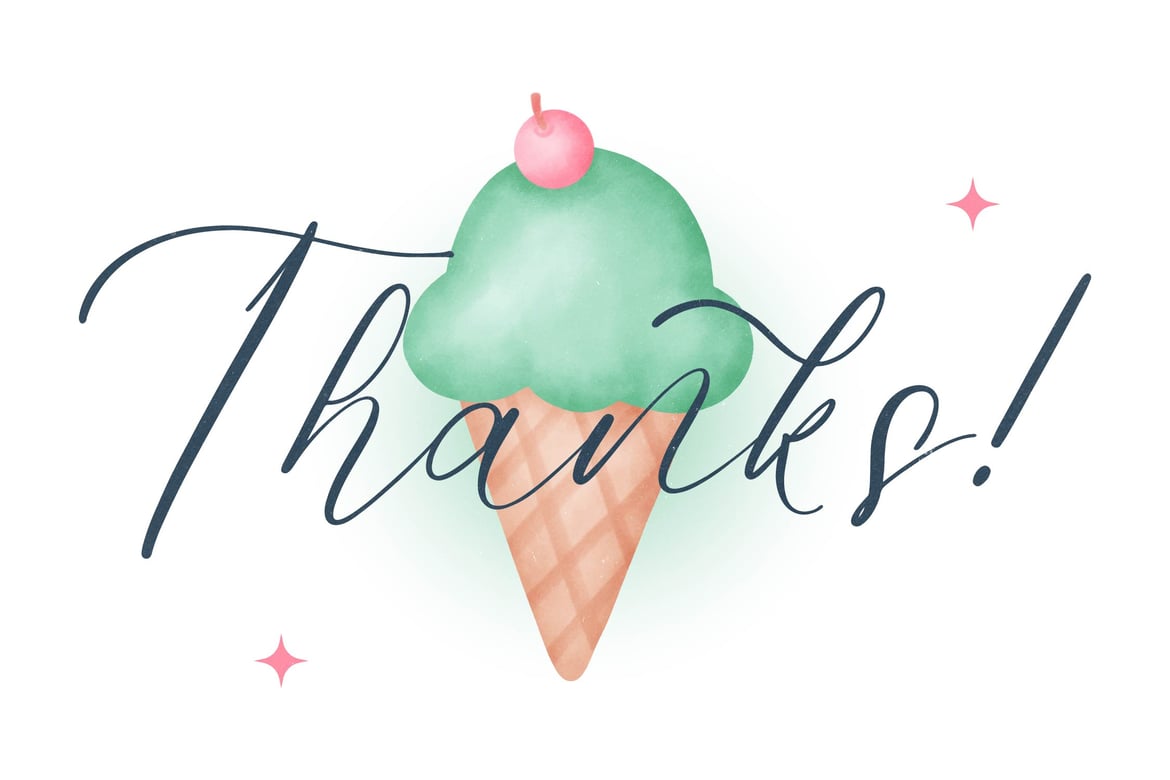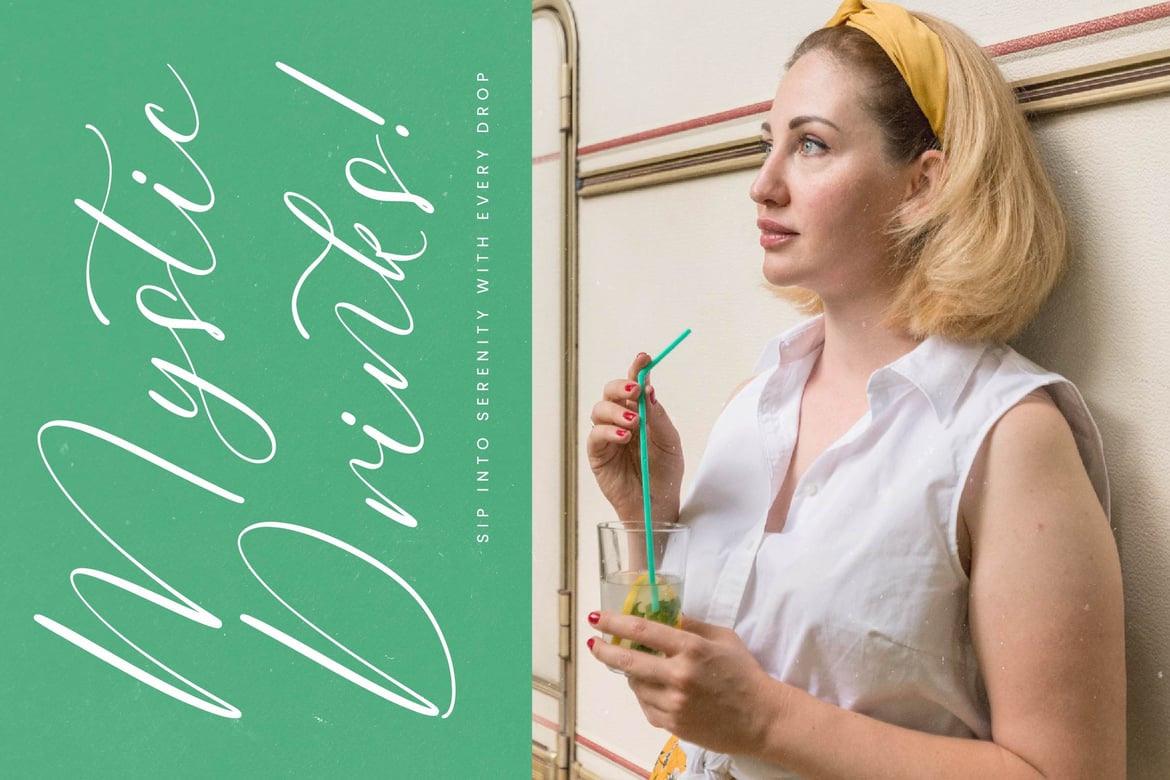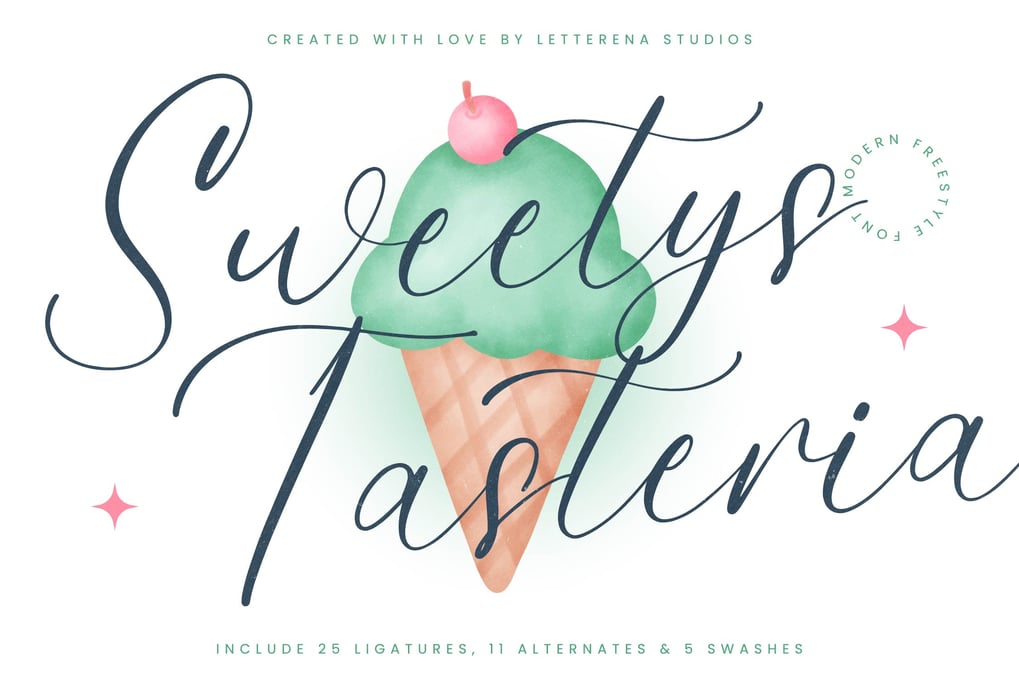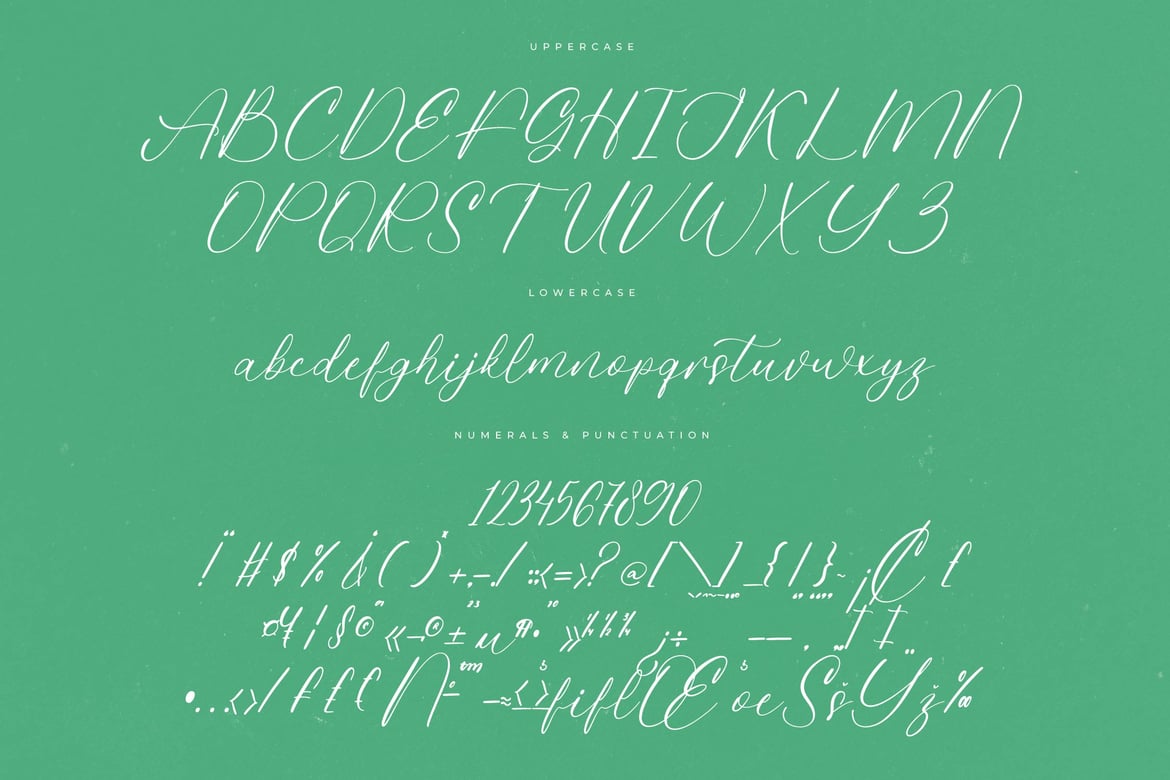
Sweetys Tasteria Modern Freestyle Font
Hi ladies & gentlemen, this is one of our fonts suitable to complement your digital and printed creative products. This font is perfect for posters, social media posts, branding, personal projects, etc